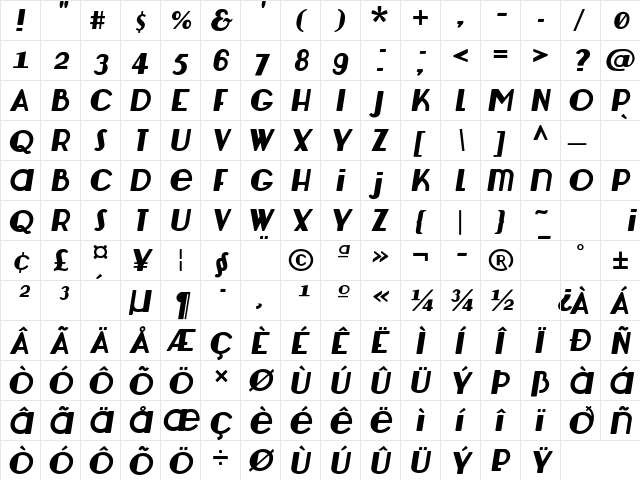
Lemondrop Italic
Design Context for Lemondrop Typeface
Lemondrop is a composed and adaptable typeface that performs quietly and consistently across a wide range of design contexts. The dynamic lean of this cut emphasises speed and emphasis in any layout.
Pro Tip: Use Lemondrop for emphasis, pull quotes, and subheadings where its slanted energy can add rhythm to the layout.